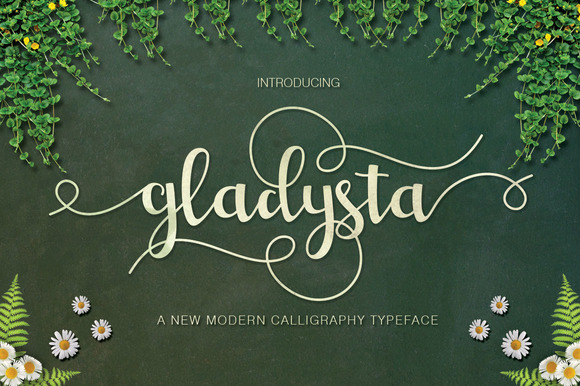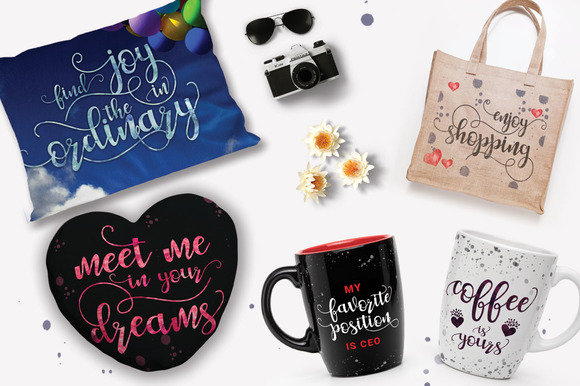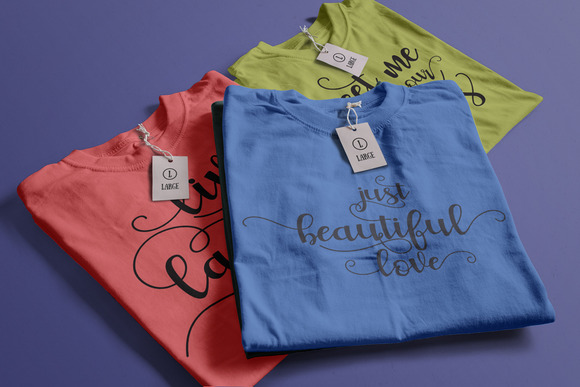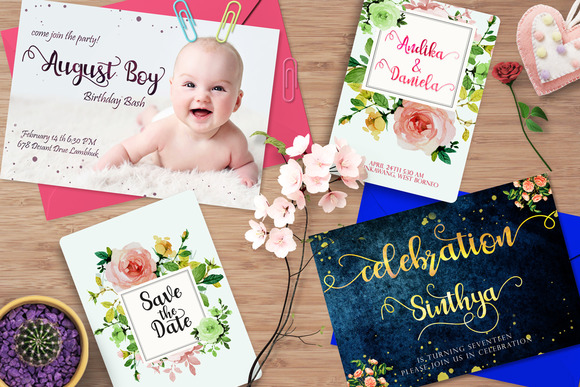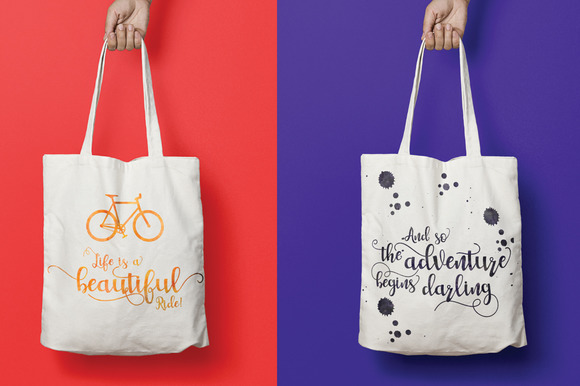
Gladysta Font
About Gladysta Font
Gladysta Script is a new, fresh, modern calligraphy typeface with a beautiful and dancing baseline! It combined brush lettering with traditional hand writing. Looks great on personal branding, business cards,wedding invitations, stamps, quotes, posters and greeting cards.